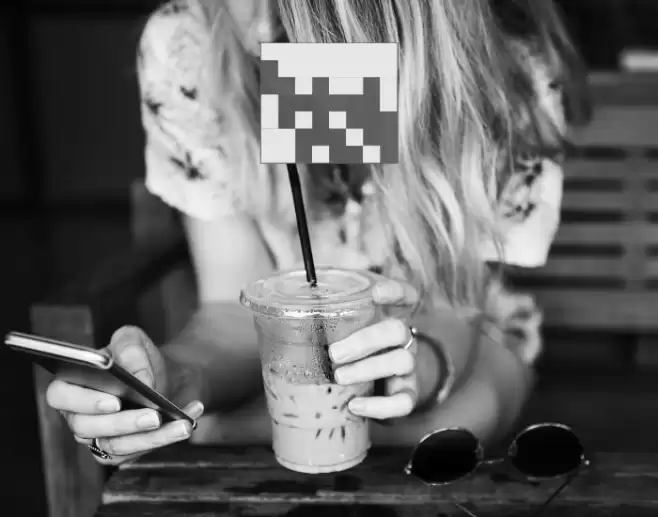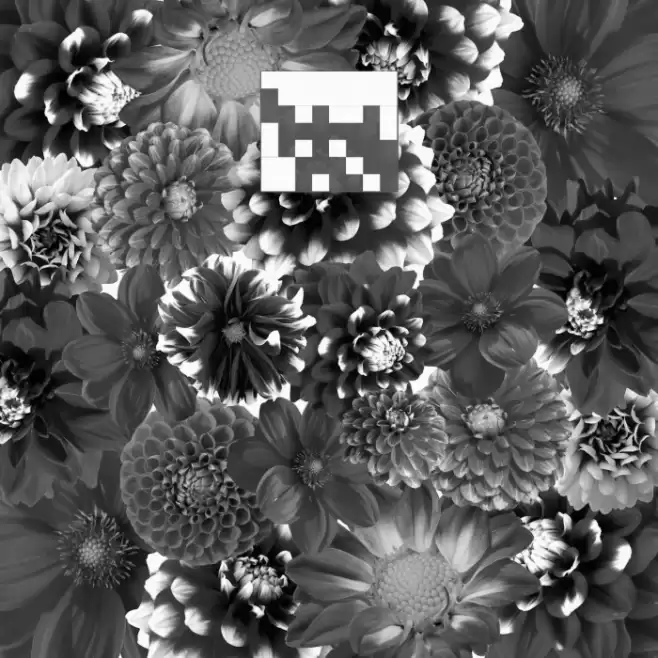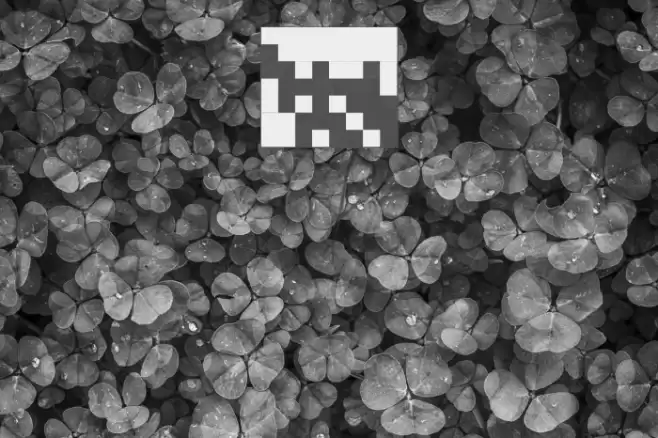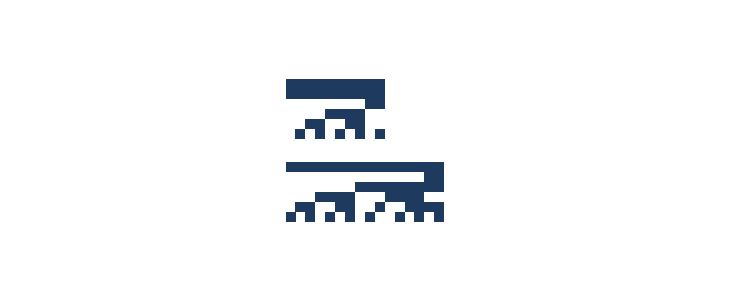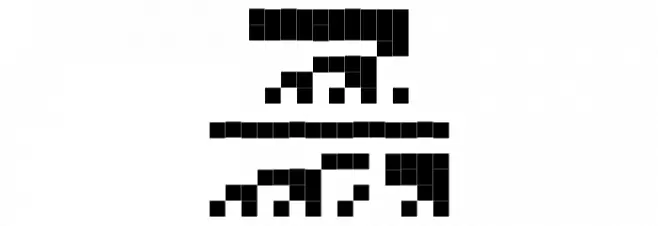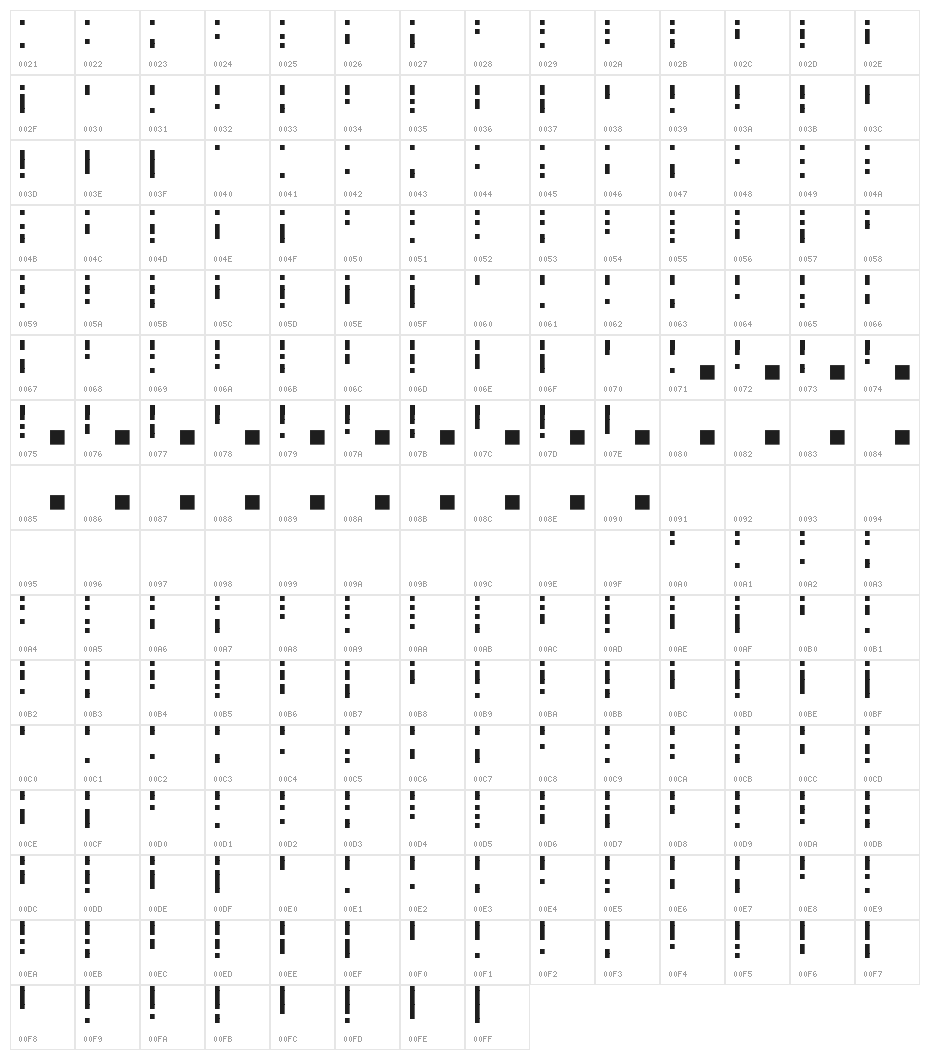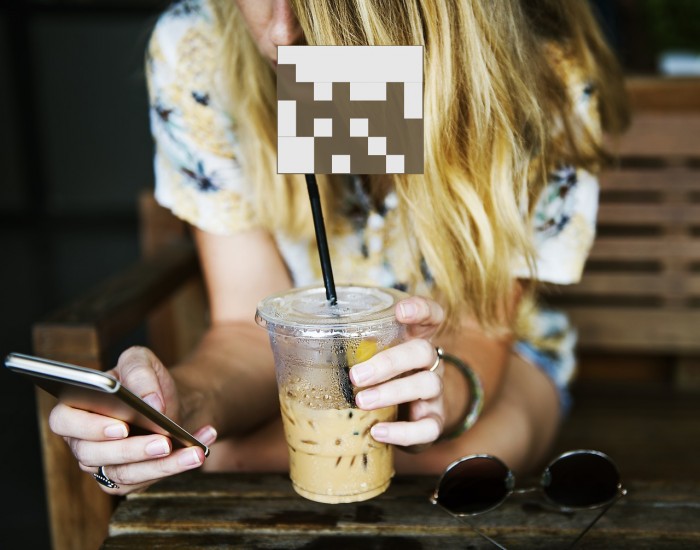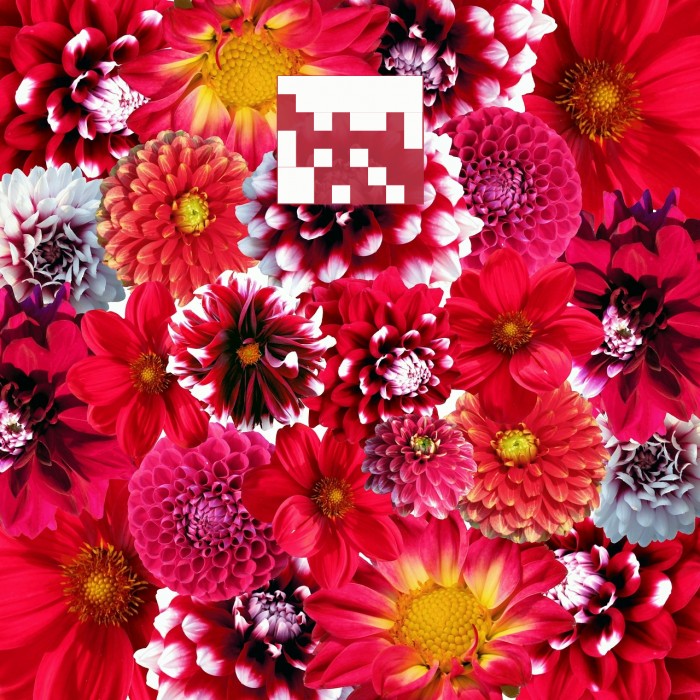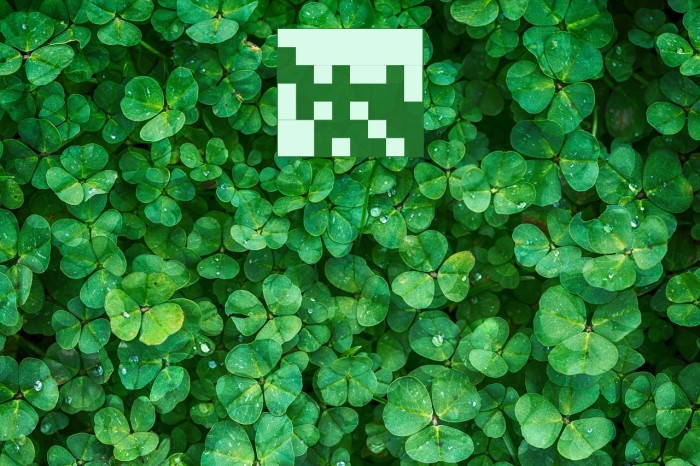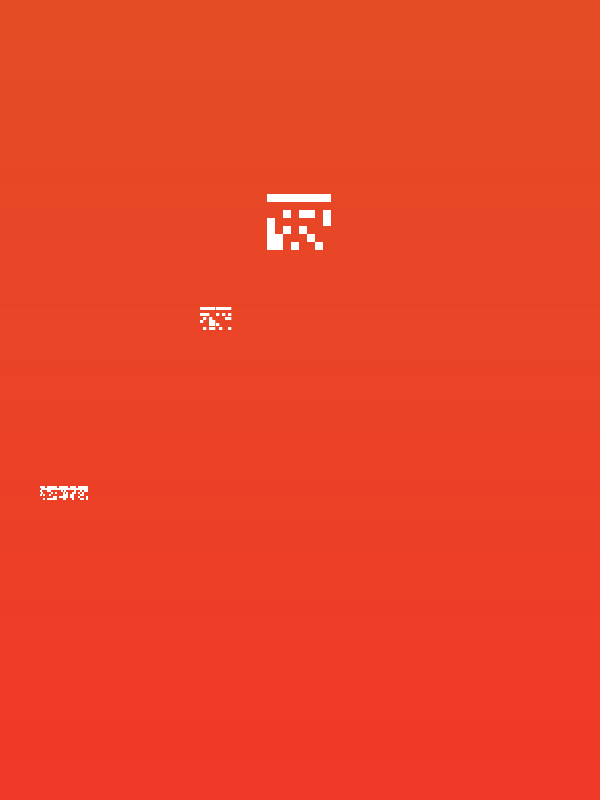
Octatrax Font
Octatrax Description
This font features a highly pixelated, blocky design reminiscent of early digital displays or retro video games. Each character is composed of small square blocks, creating a distinct, geometric appearance. The uniformity and simplicity of the design give it a digital, futuristic feel. The characters are evenly spaced, maintaining a consistent grid-like structure throughout. This style is particularly effective for projects that aim to evoke a sense of nostalgia or a technological theme. The font's unique aesthetic makes it stand out, though it may not be suitable for lengthy text due to its stylized nature.
A pixelated, blocky font with a retro digital aesthetic from Uncategorized fonts.
- Proposed Projects: Ideal for video game design, tech-themed posters, digital art projects, and retro-inspired branding.
- Overall Style: Retro, Digital